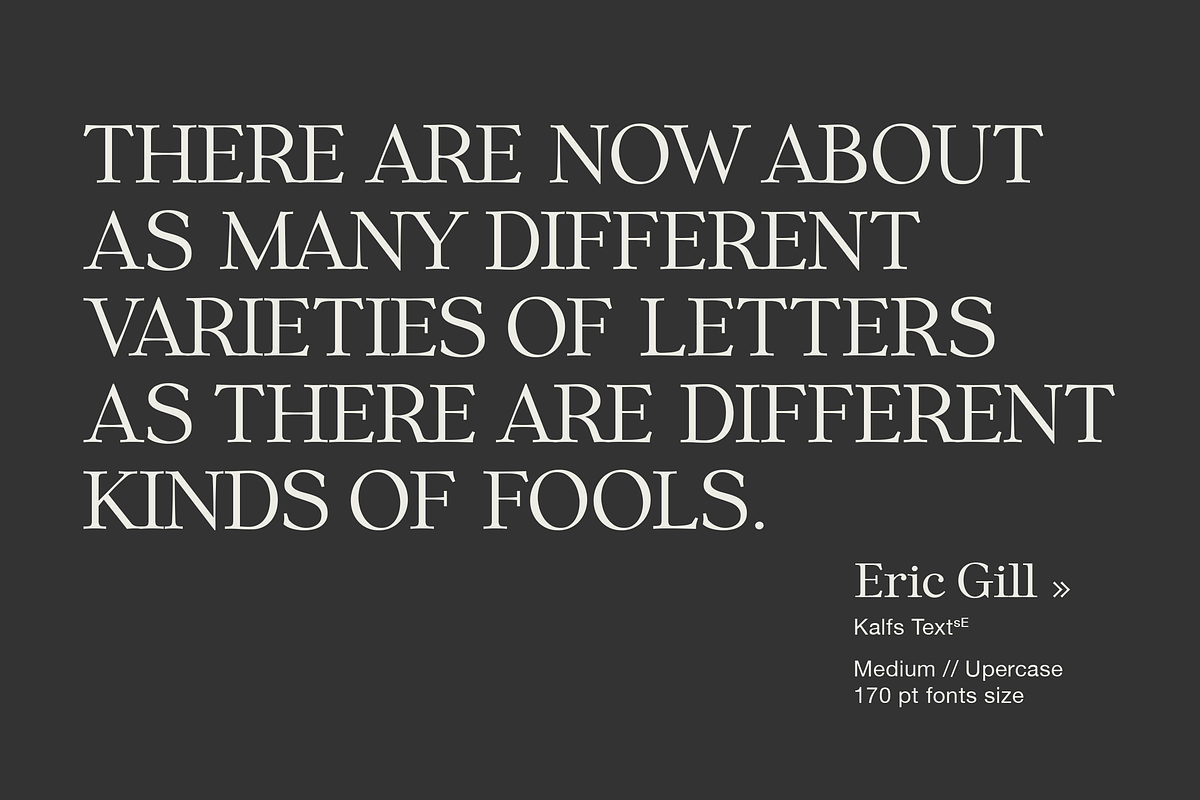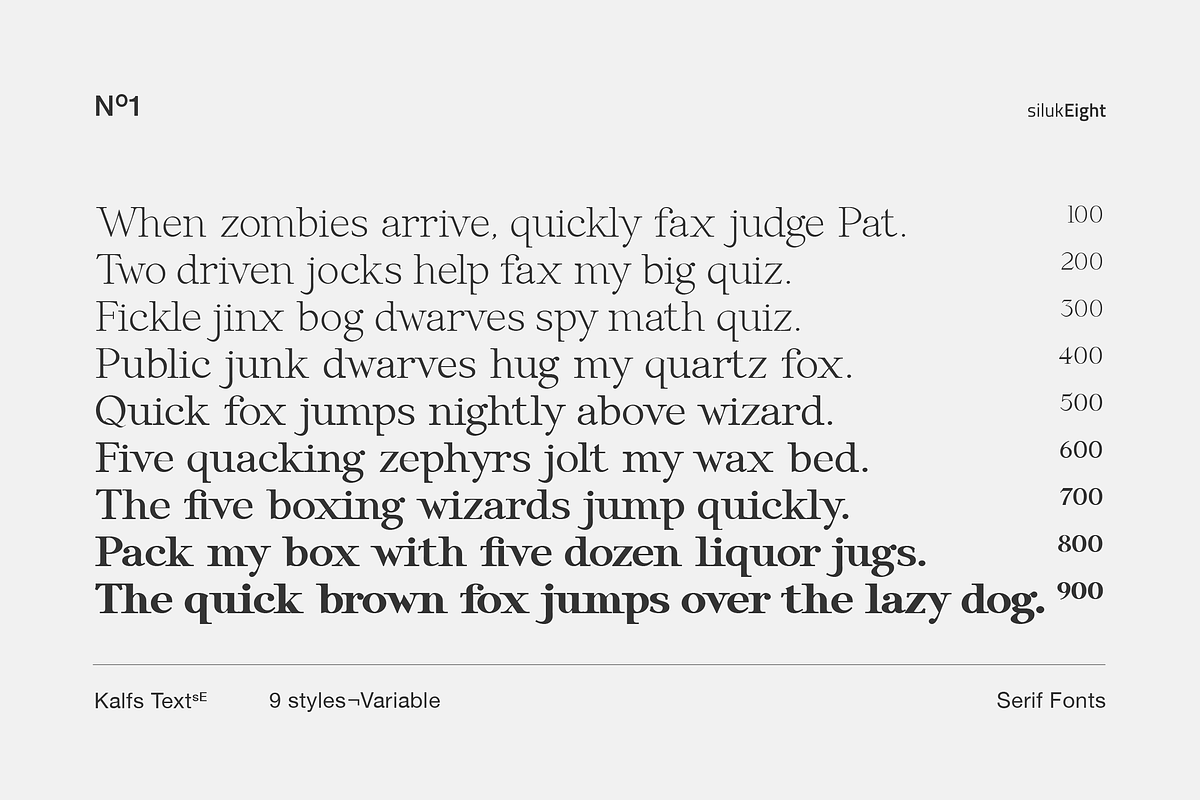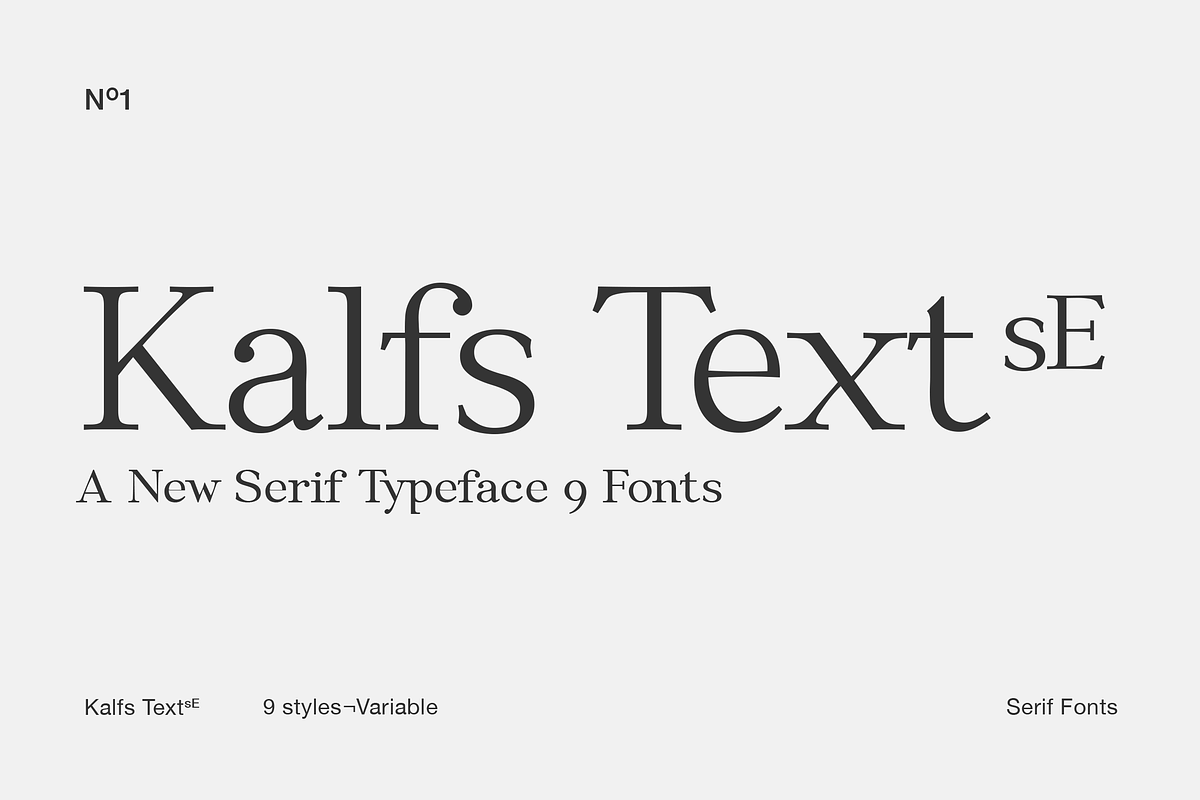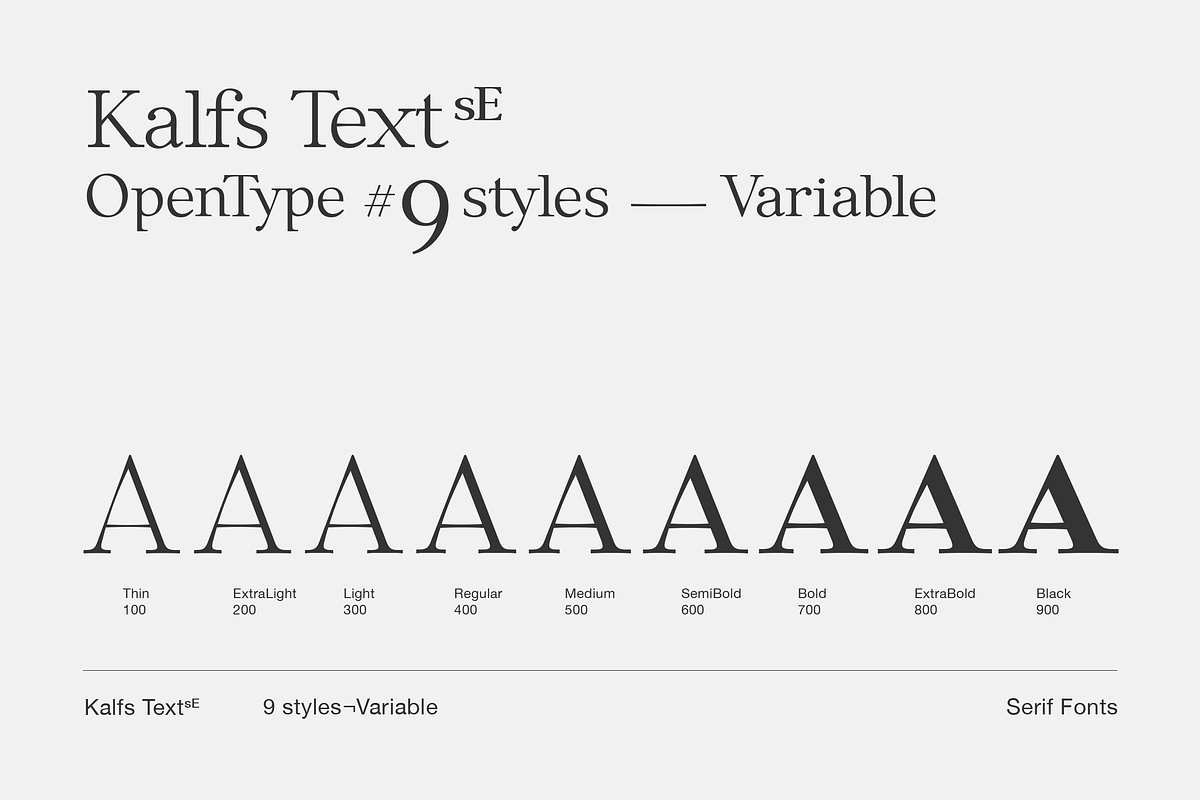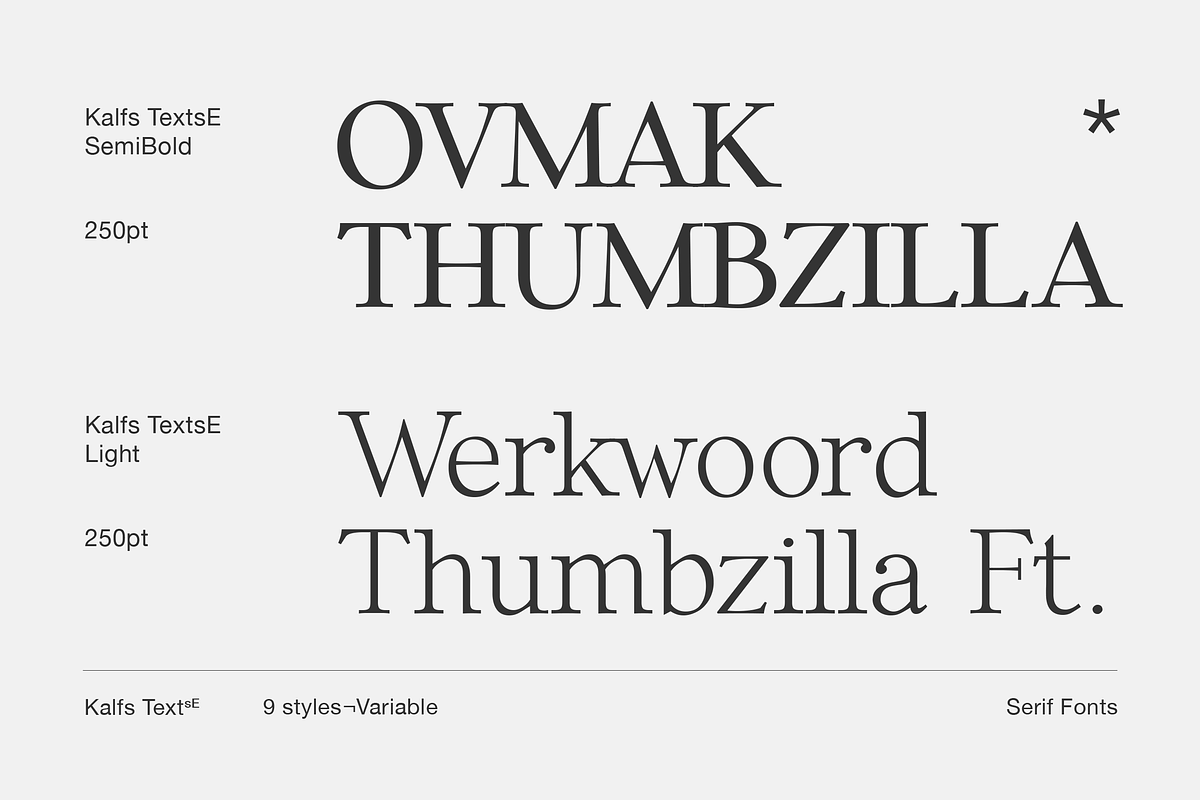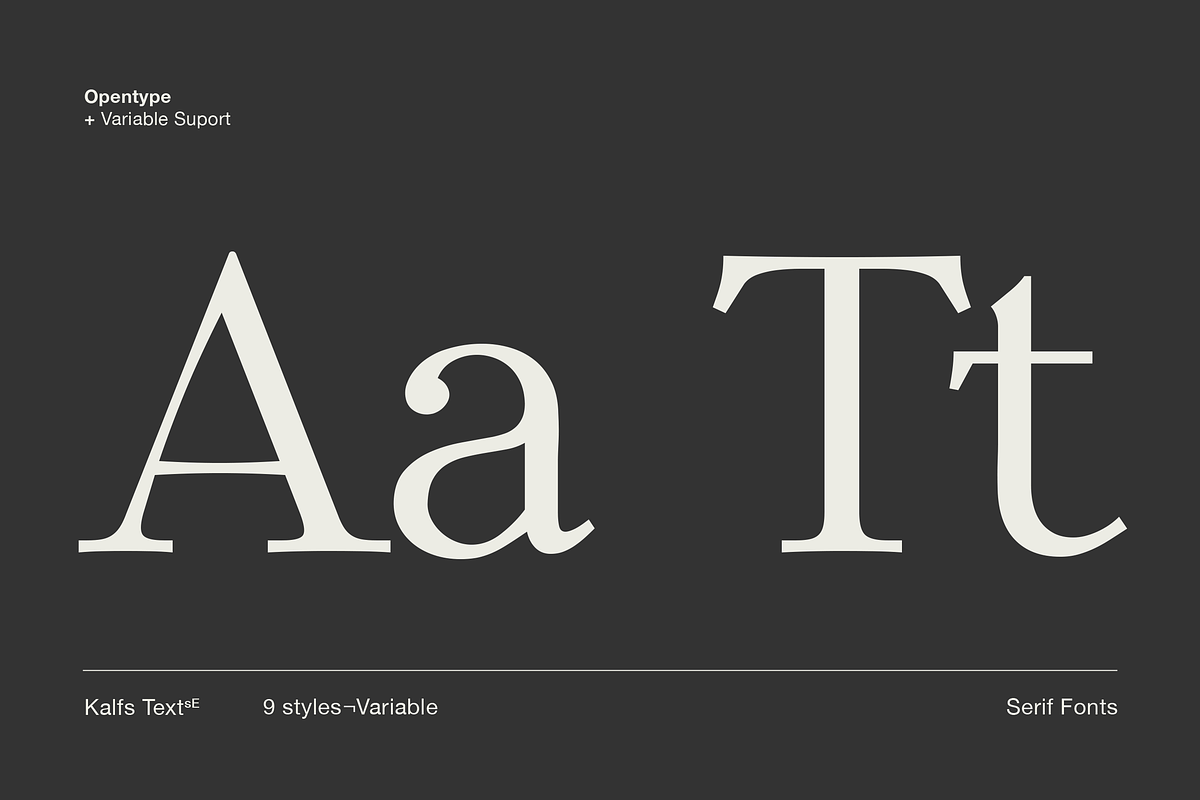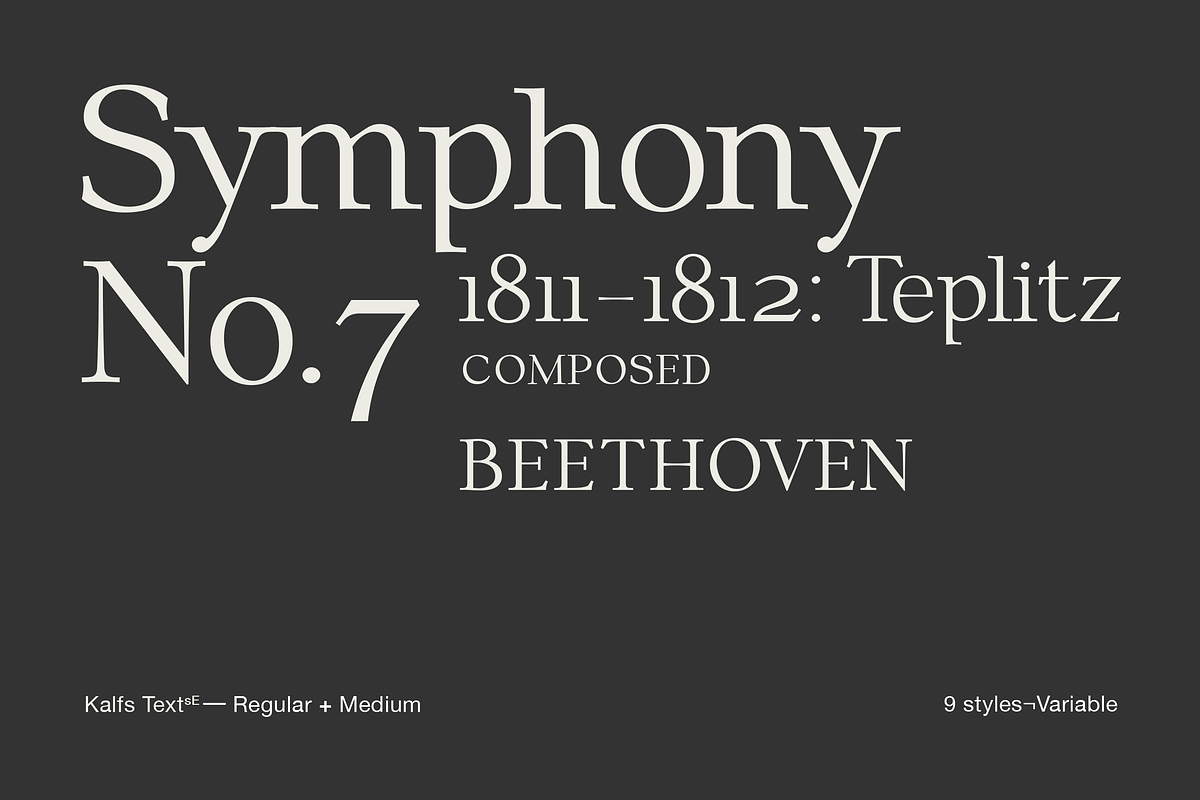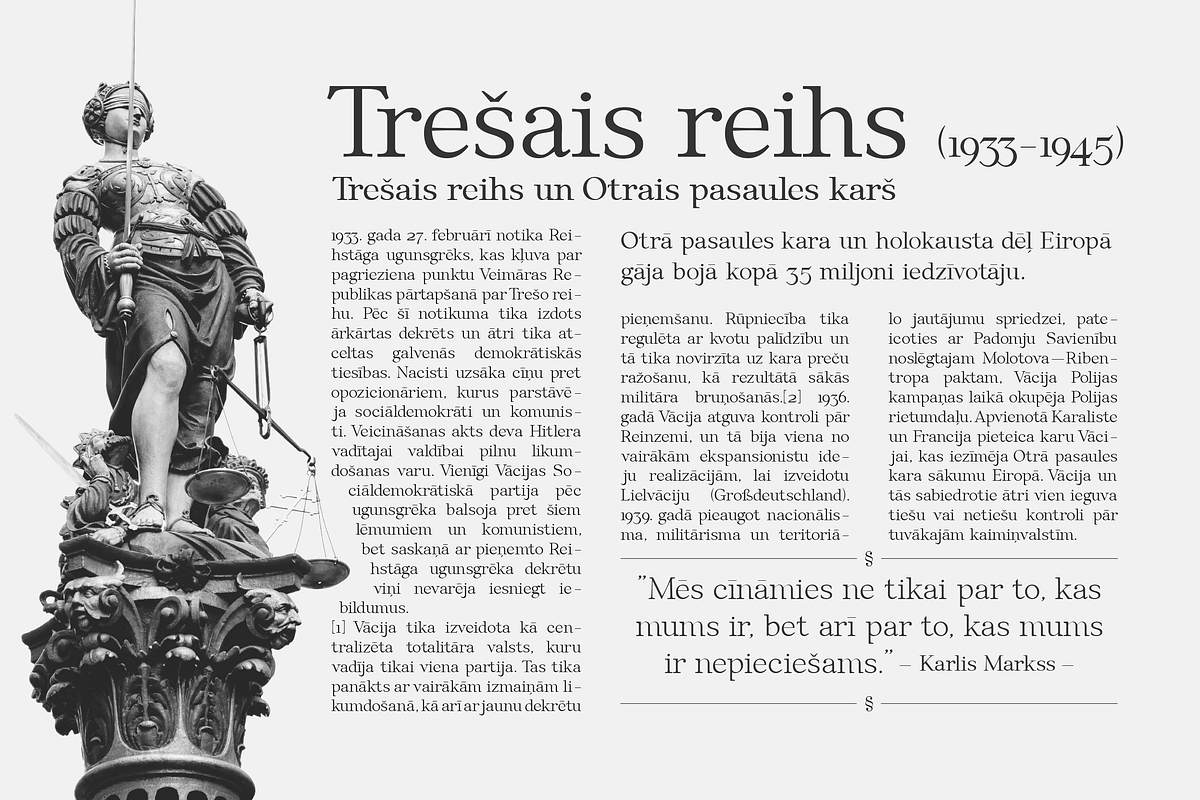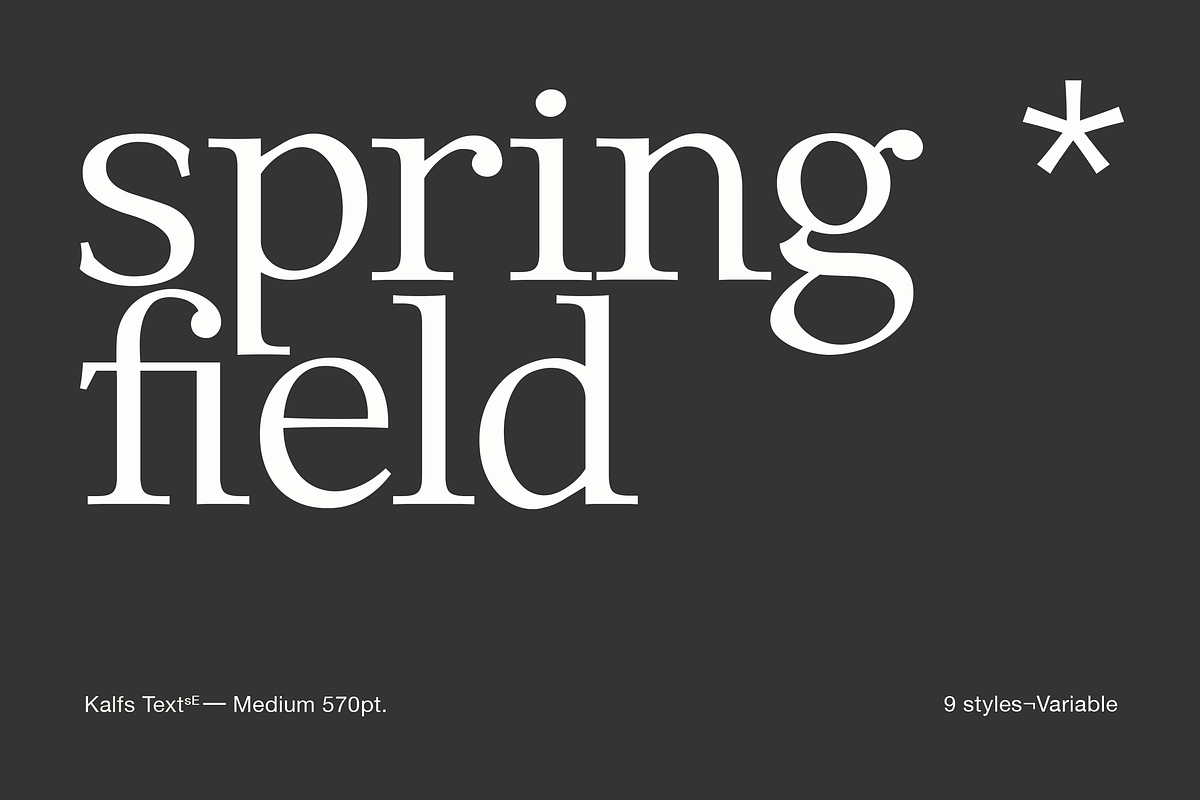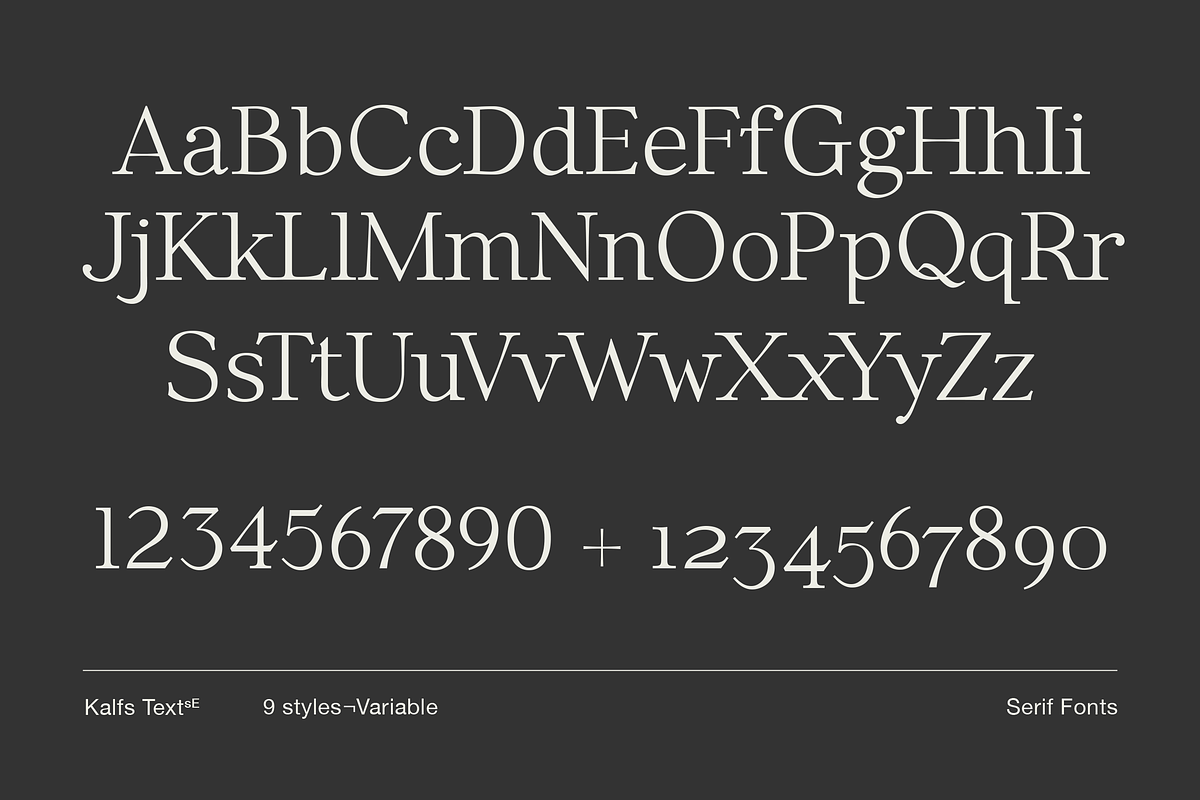
Kalfs Text sE
Introducing KalfsTextsE, a timeless serif font designed to bring a touch of classic elegance and modern sophistication to your projects. With its clean lines and refined curves, this font is perfect for branding, editorial designs, invitations, and more. Whether you're aiming for a luxurious feel or a vintage-inspired look, KalfsTextsE adapts beautifully to various creative needs.
Transform your designs with the effortless charm of KalfsTextsE
- Alternates & ligatures
- Suitable for Headlines, Logotypes, Signs, Posters, Letterhead, website and many more.
- Support International Language